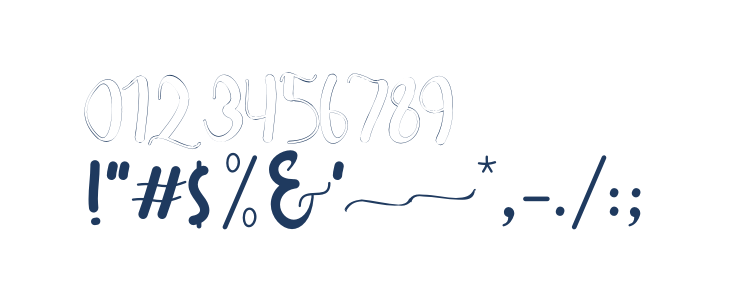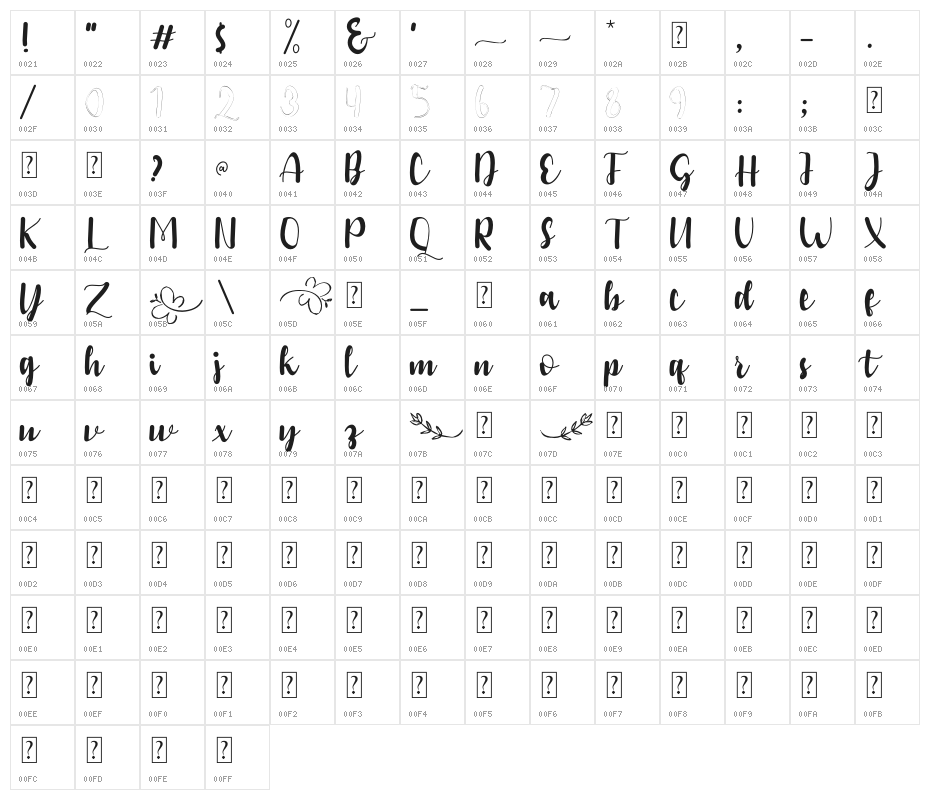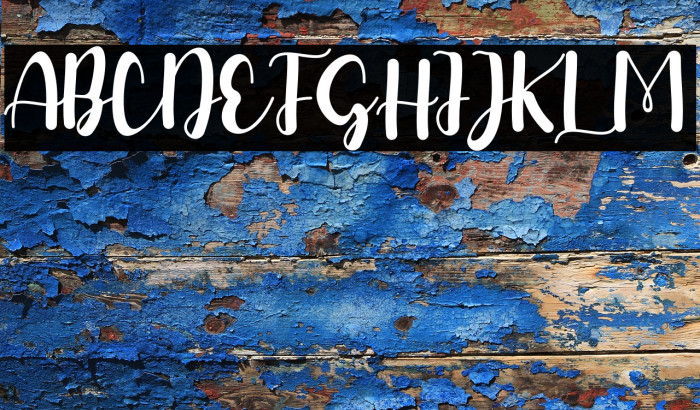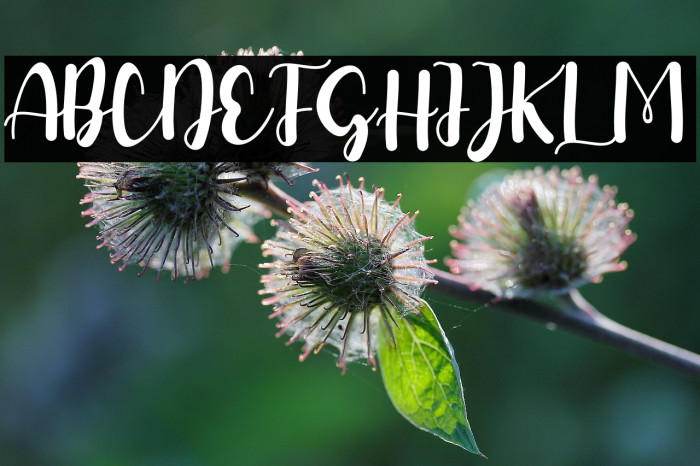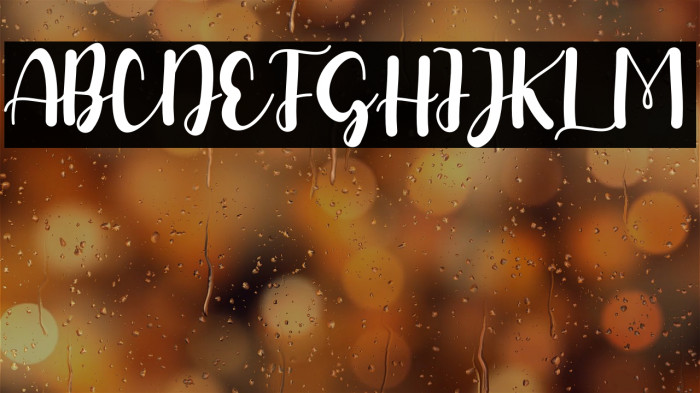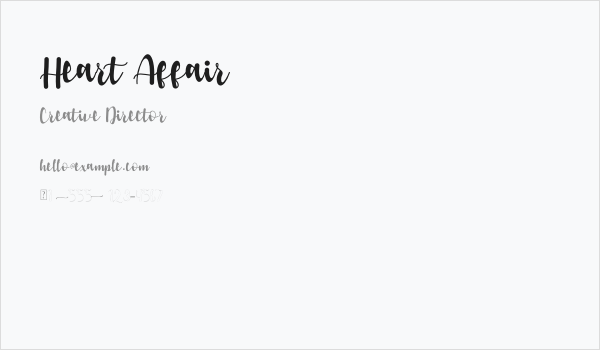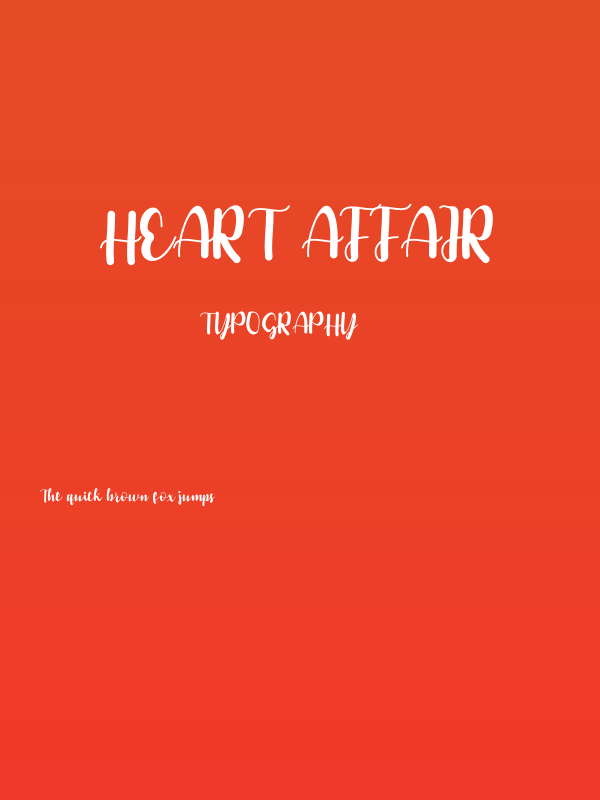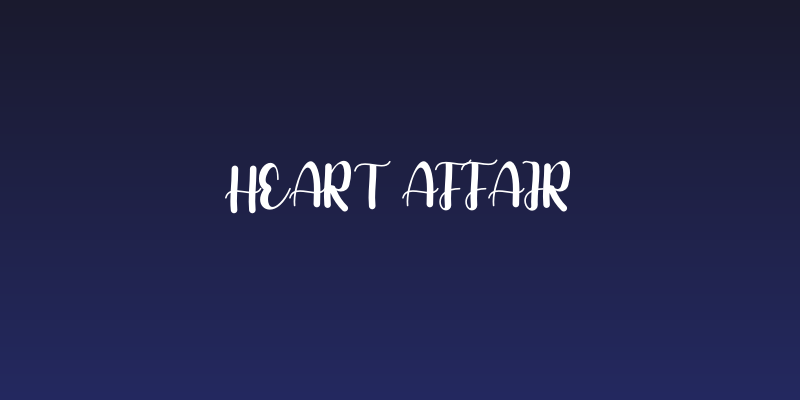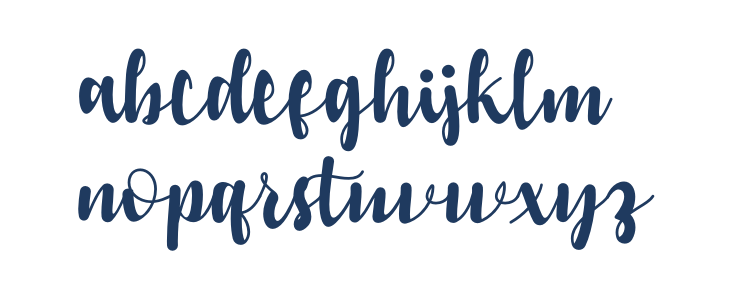
Heart Affair Font
Heart Affair Description
This font features a flowing, cursive style with elegant loops and swashes, giving it a romantic and whimsical appearance. The uppercase letters are bold and expressive, with a consistent stroke width that adds to its decorative charm. The lowercase letters maintain a harmonious balance, with some characters featuring unique flourishes that enhance its artistic flair. The numbers are designed with a similar fluidity, ensuring a cohesive look across all characters. Special characters are thoughtfully integrated, maintaining the font's overall aesthetic. This font is perfect for projects that require a touch of elegance and creativity.
| Proposed Projects | Ideal for wedding invitations, greeting cards, branding, and any project that benefits from a touch of elegance and charm. |